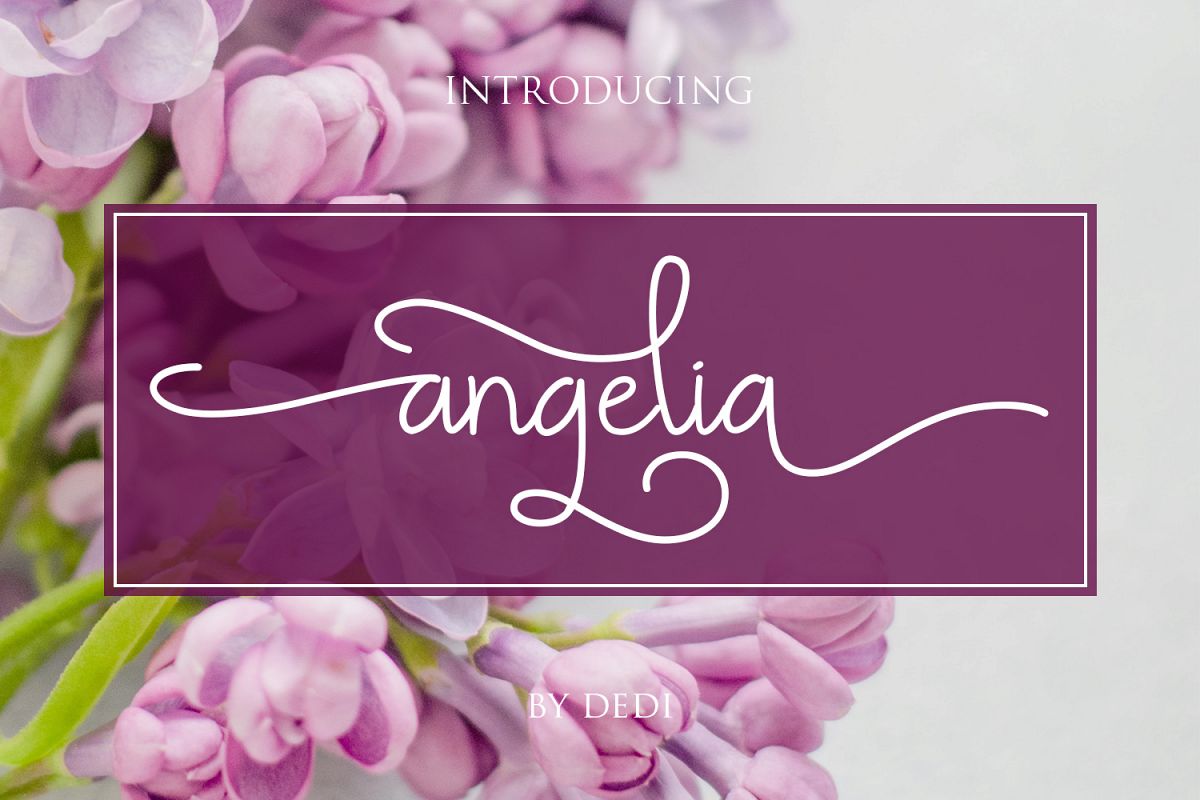
Angelia
Hello, I will introduce my new font
Angelia hand-lettered calligraphy font with ethereal, adorable touch. It is perfect for branding, event invites, lovely Instagram posts.
Angelia includes of charming uppercase and lowercase international letters, numerals, a large range of punctuation and ligatures. All lowercase letters include beginning and ending swashes, giving unique and realistic hand-lettered style.